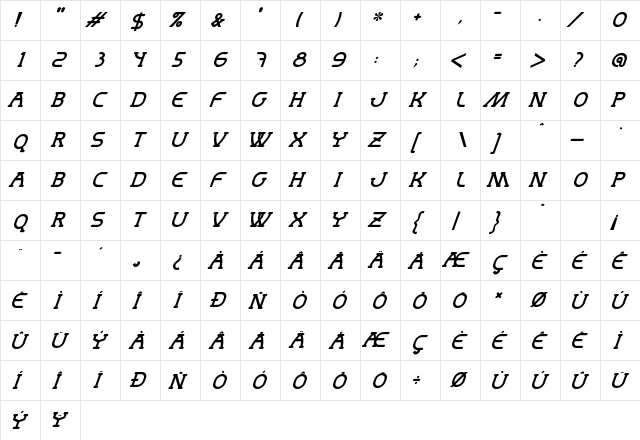
MastumItalic Regular
| Foundry | Xerographer Fonts |
| Designer | Max Infeld - Xerographer Fonts |
Design Context for MastumItalic Typeface
MastumItalic offers clean, dependable letterforms without strong stylistic allegiance, making it a practical choice for designers who need flexibility. Its italic angle brings a sense of urgency and motion to the letterforms.